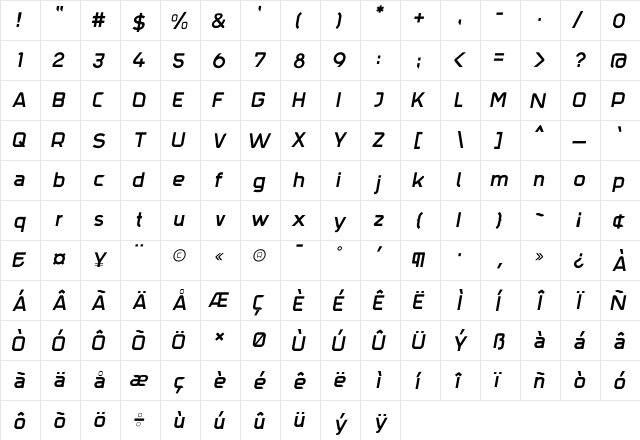
Trak SemiBold
Design Context for Trak Typeface
Trak offers clean, dependable letterforms without strong stylistic allegiance, making it a practical choice for designers who need flexibility. Its bold stroke weight gives it real presence on the page.
Pro Tip: Use Trak in both headline and body roles to test its range before committing to a single application.